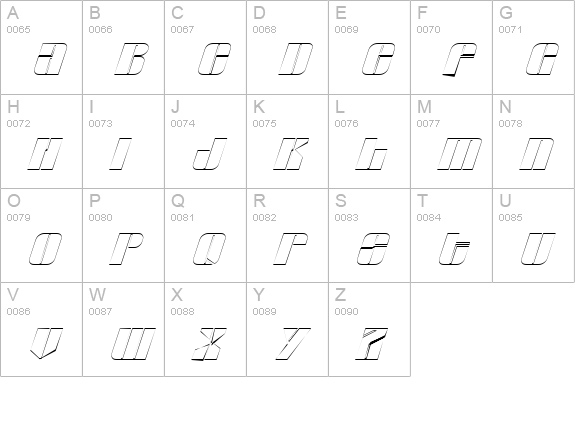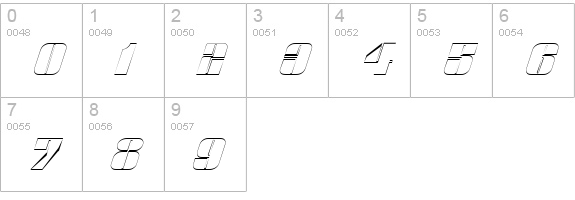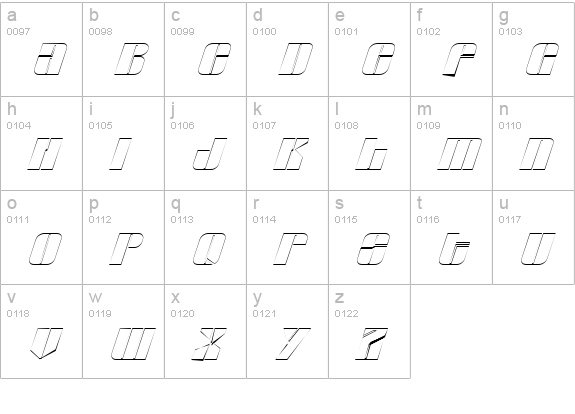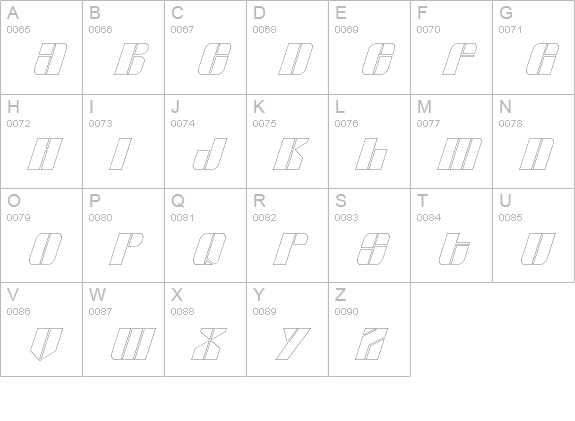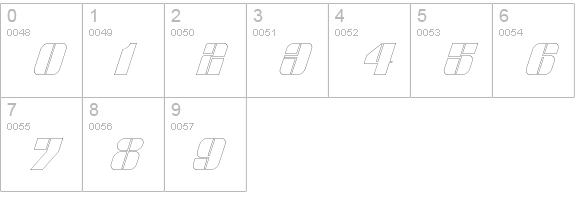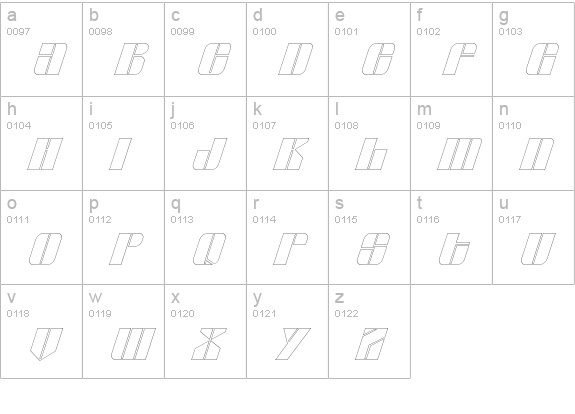
Glyphic Italic is a distinctive, italic variant in the Glyphic typeface family \xE2\x80\x94 well suited to design and typography projects.
Introducing Glyphic Italic font - a beautifully designed typeface that exudes elegance and sophistication. Its unique blend of sharp angles and flowing curves creates a stunning visual impact, making it perfect for adding a touch of class to any project. This free font features intricate details and a modern aesthetic that sets it apart from the rest. Whether you're looking to elevate your branding, create eye-catching designs, or simply enhance your written content, Glyphic Italic is sure to impress. Best of all, Glyphic Italic font is freely available to download at FontsMarket.com. Don't miss out on this opportunity to add a touch of style and sophistication to your work with this exquisite typeface. Download Glyphic Italic today and take your designs to the next level!